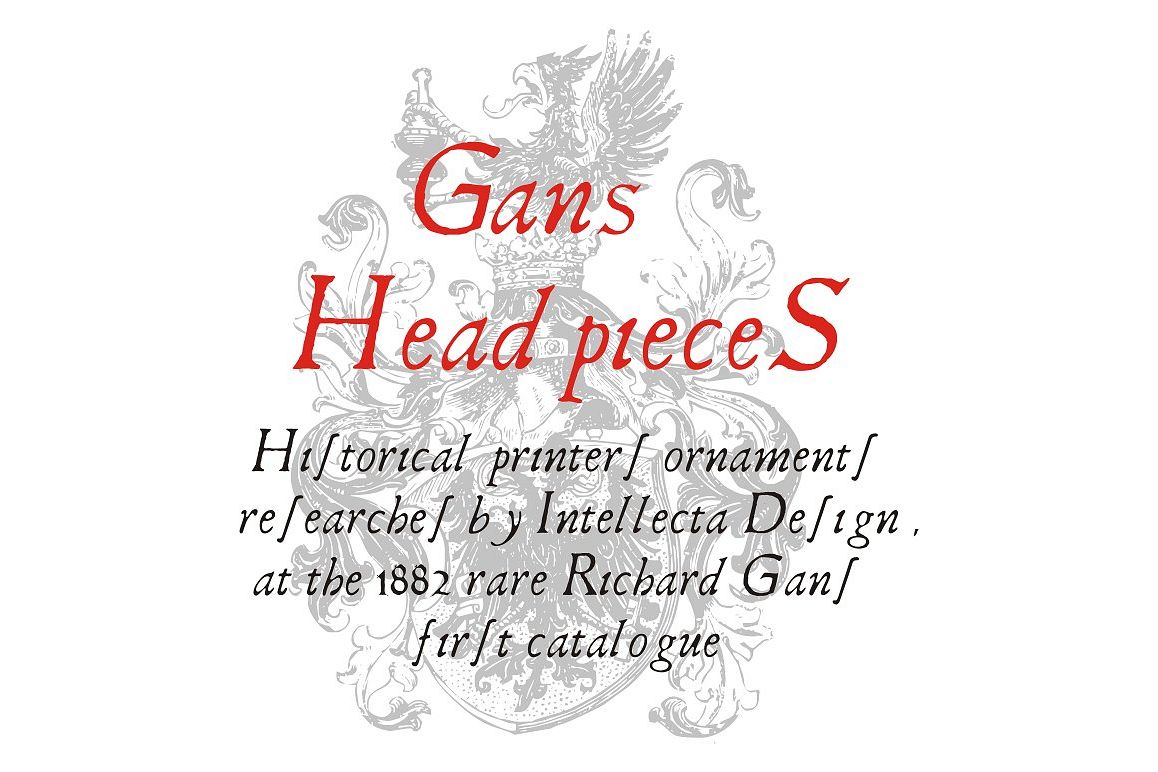
Gans Headpieces
Historical printer ornaments researched by Intellecta Design; from the year 1882, these are from Richard Gans first and very rare catalogue.